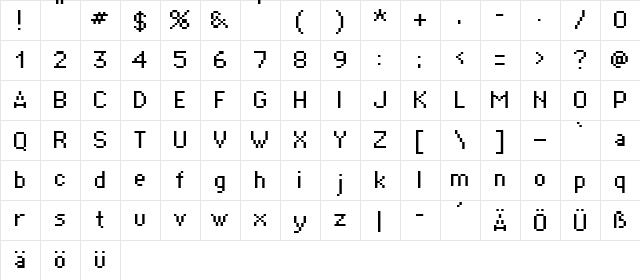
supertext Regular
Design Context for supertext Typeface
supertext takes a measured approach to typography — its balanced proportions and neutral character make it a reliable workhorse for both digital and print work.